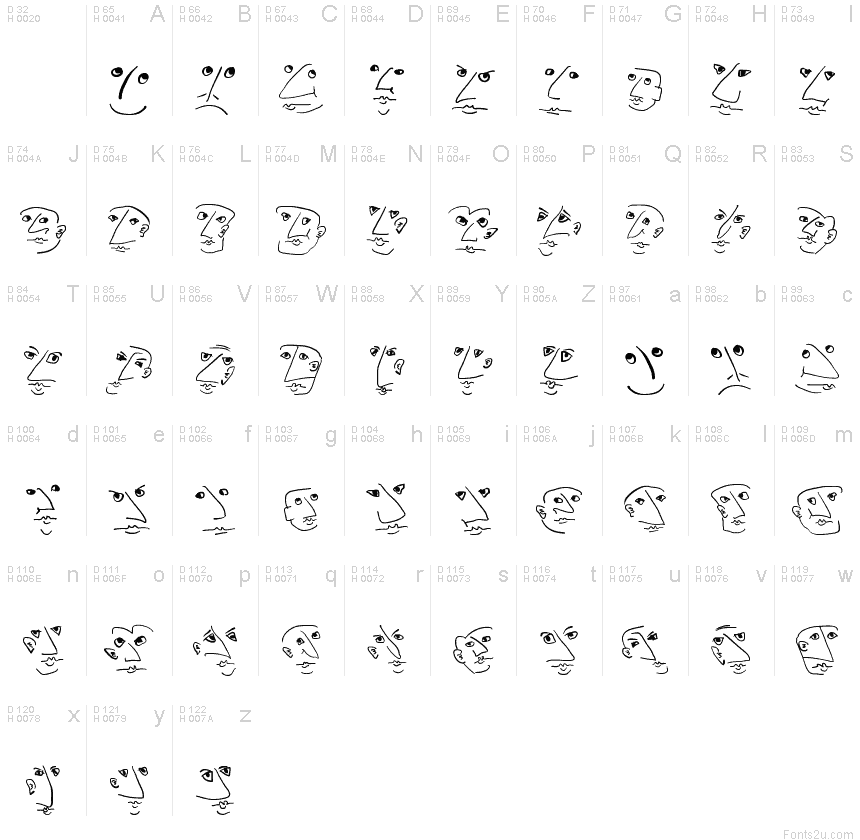
Wacofaces04 by Manfred Klein is a free hand-drawn face dingbat font built from quick, economical lines. Its varied portraits share crooked profiles, simple eyes, sharp noses, and wavering mouths, with uneven strokes that resemble spontaneous pen sketches.
An independent arts venue or offbeat clothing label could use these faces across event posters, merchandise, packaging, and social graphics, since the loose expressions turn each item into part of the same odd cast. In editorial design, the portraits can become recurring illustrated characters, section markers, or a compact emblem for interviews, local arts coverage, and opinion pages rather than serving only as conventional lettering.